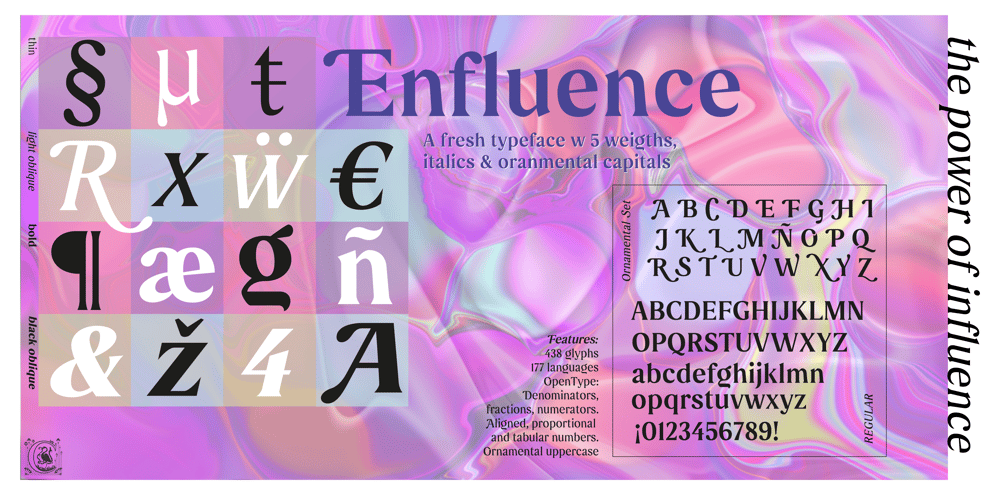
Enfluence
Enfluence font
Enfluence Font Family was designed by Pedro Sosa and published by Thera Type. Enfluence contains 10 styles and family package options. Enfluence is a modern typeface perfect for titles and short texts. It could worked in print and digital mediums. It depicts a fresh and modern image but with some winks to older typefaces. About the shape of the letter, it was built with a wide “x” height, short ascendants and descendants, a high contrast, angular serif, and some round terminals. Some letters such as “m, n, h” show a light inclination in the right stem. These characteristics give this typeface great readability with a strong attraction to the eye for its cool forms.Not enough? Also includes a set of ornamental capital letters perfect for the creation of awesome designs.